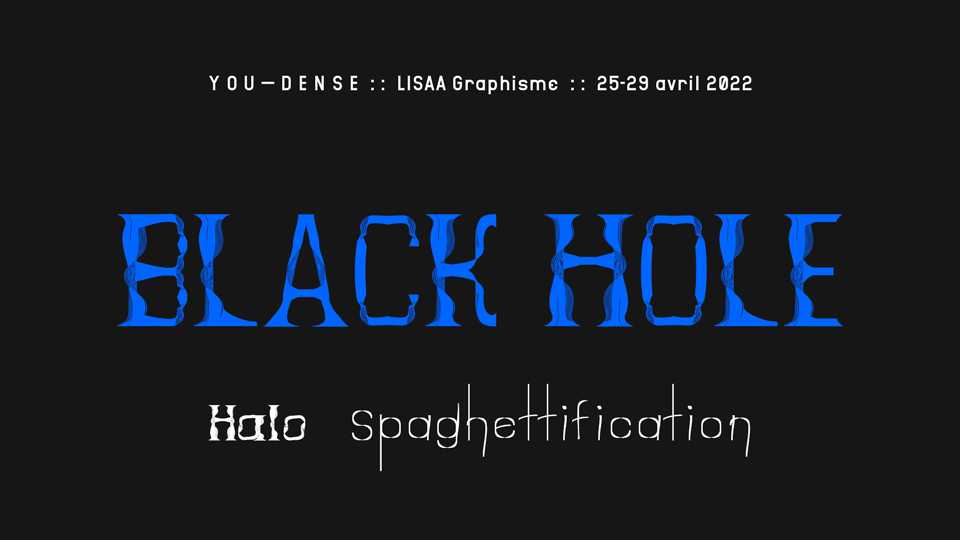
Download You Dense Black Hole font, part of the super type family designed during a workshop given by Lucas Descroix and Benjamin Dumond at LISAA Paris in April 2022. The typeface is based on the density of Black Hole material, and composed of two cuts that interpret this density in different ways.